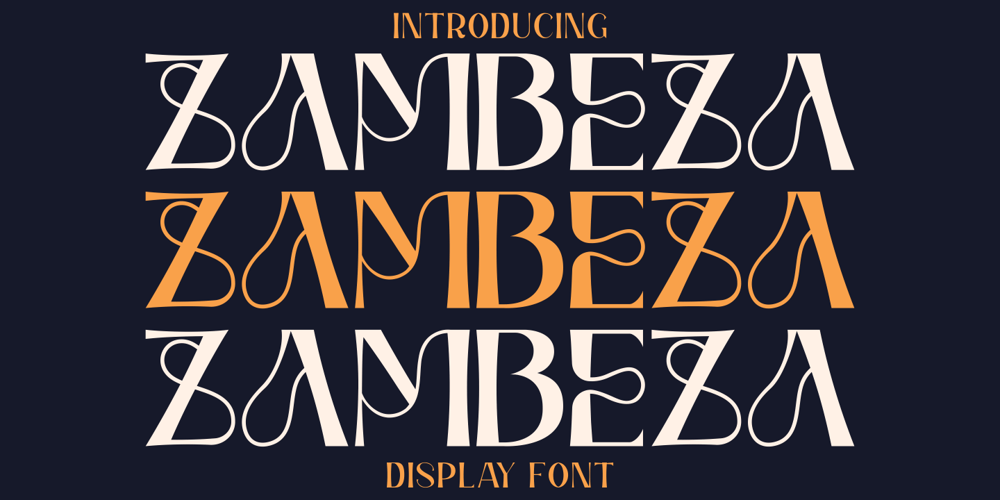
Zambeza Font Family was designed by Putra Novembria Candra Kusuma and published by Putracetol. Zambeza contains 1 styles and family package options. Introducing Zambeza, a modern display font that draws inspiration from vintage posters and combines it with elegant typography styles. With Zambeza, you can create unique letter combinations for lettering with a wide range of options. The font comes with open type features, including alternate glyphs and end swashes, providing you with creative freedom for your lettering designs.Zambeza is perfect for various design applications, such as logotypes, headings, covers, posters, logos, quotes, product packaging, headers, merchandise, social media graphics, greeting cards, and more. Its versatile design makes it suitable for different creative projects, adding a touch of modernity and vintage charm.To access the alternate glyphs, you will need a software program that supports OpenType features, such as Adobe Illustrator CS, Adobe Photoshop CC, Adobe InDesign, or Corel Draw. This allows you to fully utilize the font’s design possibilities and create unique compositions.Your zip package will include the Zambeza font files in otf, ttf, and woff formats, providing compatibility for different design projects. The font includes uppercase and lowercase letters, numerals, punctuation, and symbols, giving you all the essential elements for your designs.Zambeza also supports multilanguage characters, making it suitable for designing in various languages. Whether you’re creating designs in English, Spanish, French, or any other language, Zambeza has you covered.In summary, Zambeza is a modern display font that combines vintage inspiration with elegant typography styles. With its open type features, multilanguage support, and versatile design applications, Zambeza is a great choice for your creative projects. Thank you for choosing Zambeza from our collection. Happy designing!